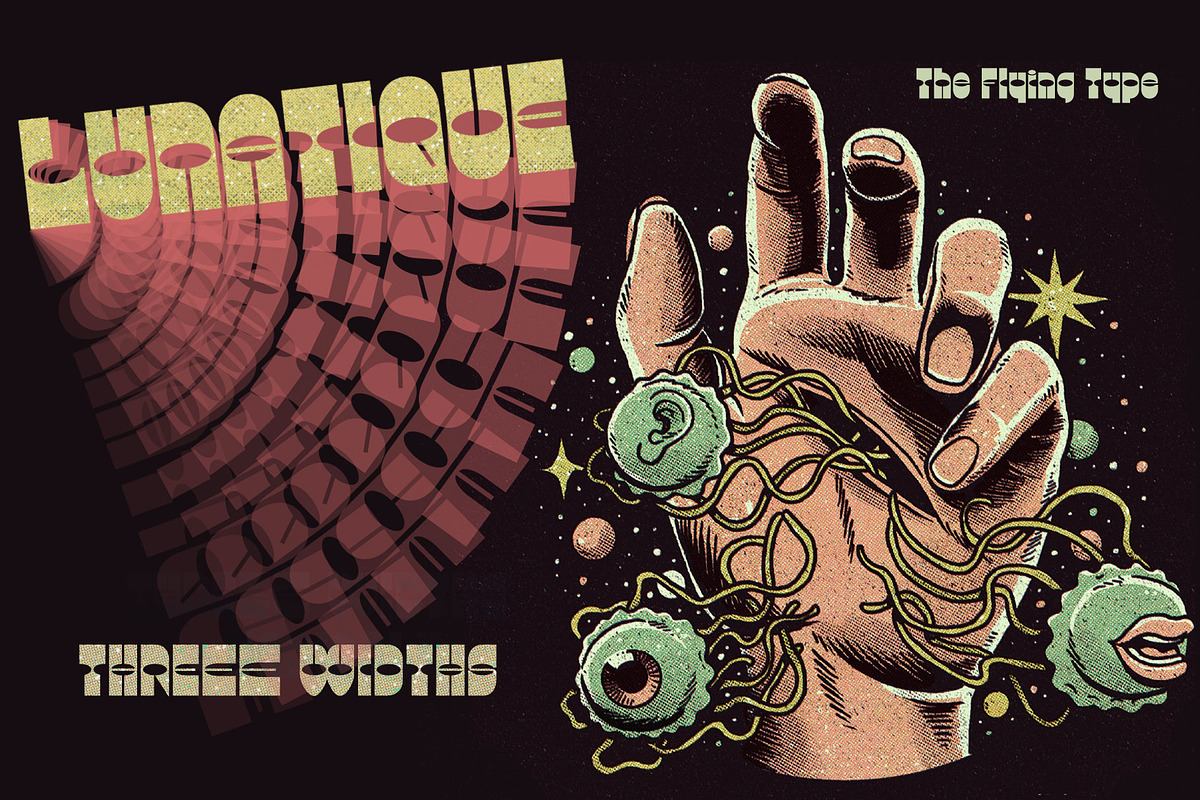
Lunatique | Three Retro Fonts Free Download is a vibrant font trio inspired by the bold, funky aesthetics of the '60s, '70s, and '80s. Perfect for vintage posters, groovy branding, album covers, and retro-themed packaging, this bundle brings nostalgic flair and personality to any design.
With three distinct yet complementary styles, Lunatique | Three Retro Fonts Free Download gives you creative flexibility to mix and match lettering for a truly authentic retro vibe. Whether you're channeling disco-era glam or psychedelic fun, these fonts are ready to make your work pop. Try them out in your next project to capture that timeless throwback energy—then upgrade to a commercial license when you’re ready to launch in style.